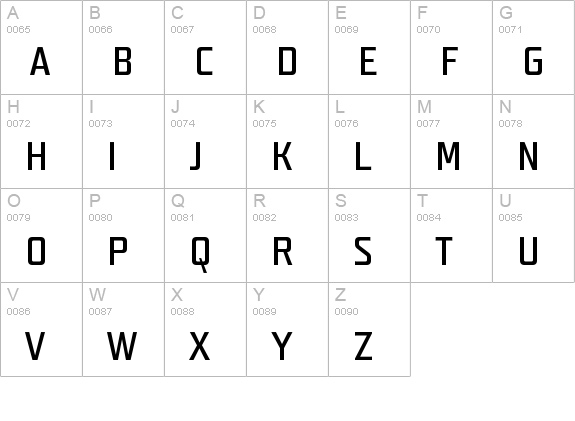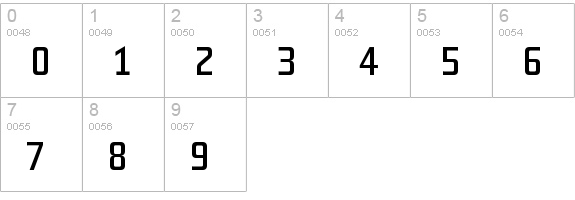
Teuton Normal is the standard, neutral variant in the Teuton typeface family \xE2\x80\x94 well suited to general body text, paragraphs, and standard typographic work.
Teuton Normal font is a versatile and elegant typeface that exudes a sense of timeless sophistication. With its clean lines and balanced proportions, this font is perfect for a wide range of design projects, from branding to editorial layouts. The Teuton Normal font is characterized by its strong and sturdy letterforms, making it highly readable even at small sizes. Its classic and straightforward design is reminiscent of traditional typography, while still maintaining a modern and contemporary feel. One of the standout features of the Teuton Normal font is its versatility. Whether you're creating a logo for a corporate client or designing a wedding invitation, this font adapts effortlessly to any style or aesthetic. Its clean and minimalistic design allows it to seamlessly integrate with other design elements, elevating the overall visual impact. What sets Teuton Normal font apart is its accessibility. This font is freely available to download at FontsMarket.com, making it easily accessible to designers and creatives worldwide. Its free availability allows for greater creative freedom and flexibility, empowering designers to bring their visions to life without any limitations. In conclusion, Teuton Normal font is a timeless and versatile typeface that combines classic elegance with modern simplicity. Its clean lines, balanced proportions, and effortless readability make it the perfect choice for a wide range of design projects. And with its free availability at FontsMarket.com, the Teuton Normal font is a valuable tool that empowers designers to create without boundaries.